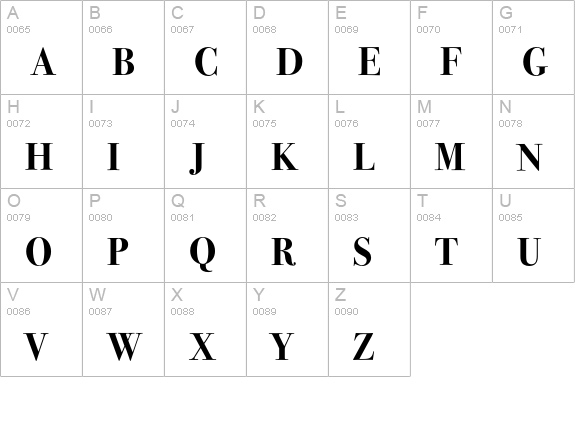
BodoniSeventytwoEF-Bold Font Details
BodoniSeventytwoEF-Bold is a strong, high-contrast variant in the BodoniSeventytwoEF typeface family \xE2\x80\x94 well suited to headlines, attention-grabbing titles, and strong calls-to-action.
BodoniSeventytwoEF-Bold is a striking and elegant font that exudes sophistication and modernity. Its bold weight makes it perfect for headlines, titles, and any design element that demands attention. With its clean lines and distinctive serifs, BodoniSeventytwoEF-Bold is a timeless choice for adding a touch of class to your projects. What sets BodoniSeventytwoEF-Bold apart is that it is not only visually appealing but also versatile in its usage. Whether you're designing a poster, logo, or website, this font will make a bold statement that commands respect. And the best part? BodoniSeventytwoEF-Bold is completely free to download at FontsMarket.com. So, you can elevate your designs without breaking the bank. Don't miss out on this opportunity to add a touch of sophistication to your projects with BodoniSeventytwoEF-Bold.